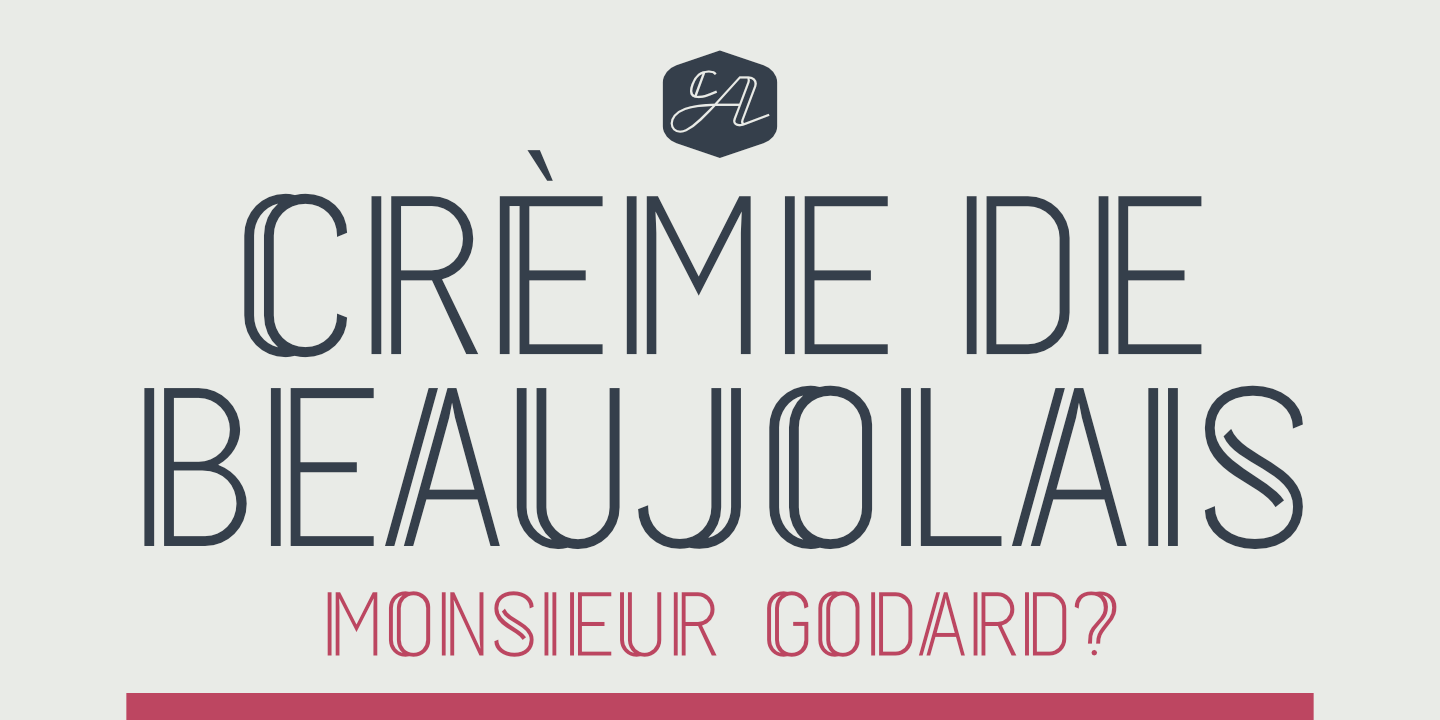
The CA Fourty Open Font Free Download is an incredibly distinctive and contemporary display typeface, making it an excellent choice for designs that demand uniqueness, bold statements, and an architectural, open aesthetic. This striking font is perfectly suited for modern branding, large-scale signage, architectural firm collateral, cutting-edge magazine layouts, event promotions for design conferences, and digital art installations. Imagine it as the eye-catching logo for a progressive urban development project, providing the minimalist yet impactful typography for a high-tech exhibition, or giving a sleek, transparent identity to an innovative design studio. Its open forms, often with subtle geometric precision, ensure your message is delivered with undeniable impact and a forward-thinking vision.
What makes CA Fourty Open Font truly exciting is its ability to blend minimalist design with a strong, almost structural presence, where negative space plays a crucial role. It's not just another display font; it embodies a sense of precision, innovation, and controlled power that makes it incredibly compelling. The unique "open" counters and often monospaced or grid-based construction contribute to its high-tech, engineered appeal, while maintaining surprising readability for its style. Designers will appreciate how it instantly injects a modern, high-concept aesthetic into any project, making it ideal for designs that need to convey strength, sophistication, and a glimpse into the future of design.
The CA Fourty Open Font family typically focuses on its strong, impactful display style, often with a range of weights to enhance its versatility. You can often find variations such as Regular and Bold, allowing for significant control over visual impact and hierarchy. Some versions might also include Italic styles, offering an additional layer of dynamism. These focused yet comprehensive options ensure that the CA Fourty Open Font Free Download provides ample creative opportunities to craft truly powerful, modern, and memorable designs that resonate with a cutting-edge and authoritative sensibility, celebrating the beauty of negative space in typography.